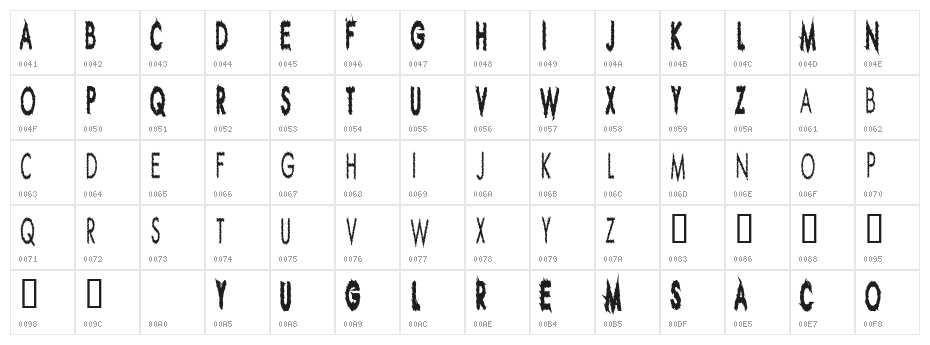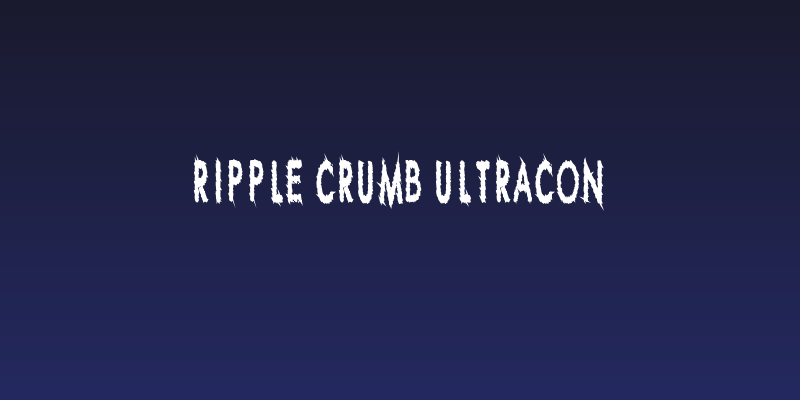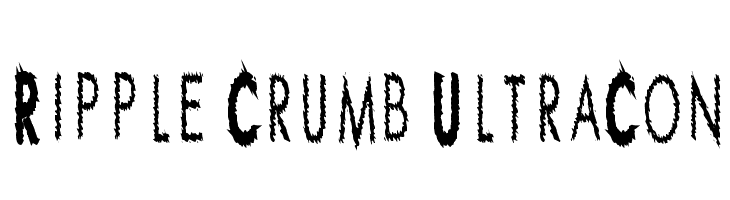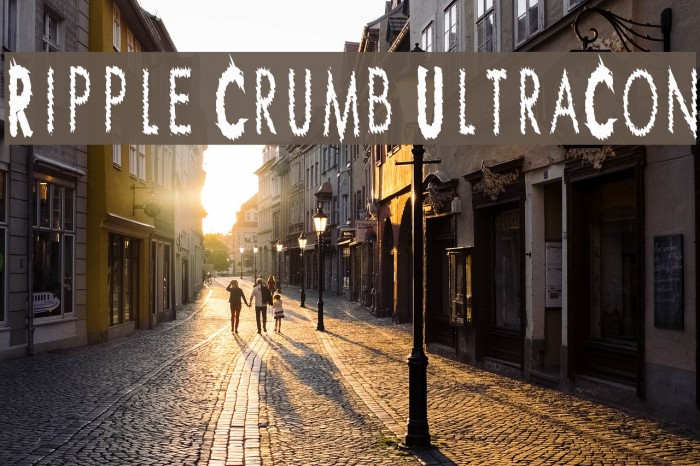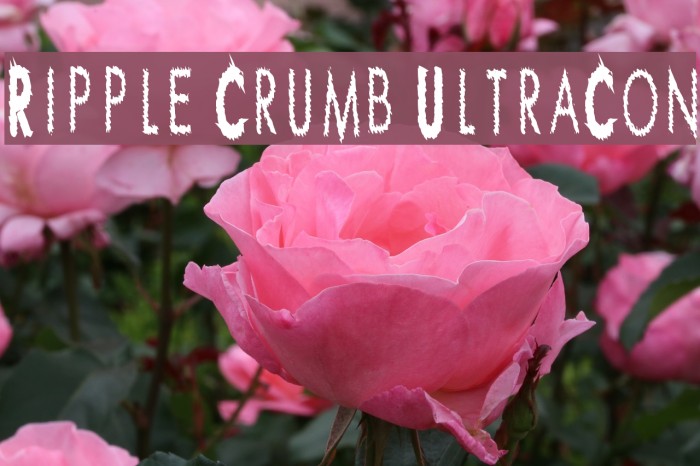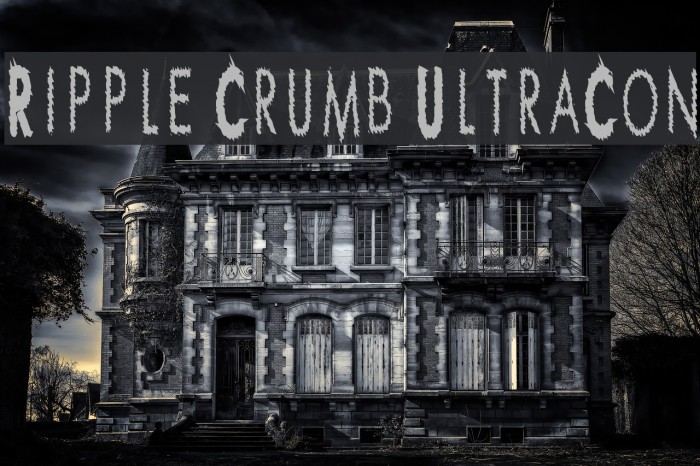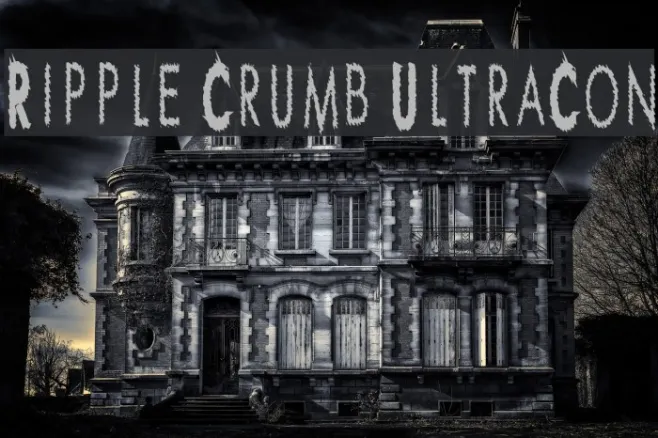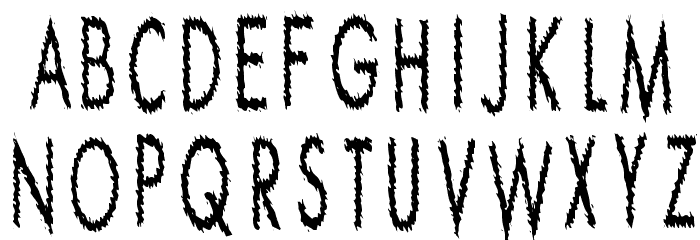
Ripple Crumb UltraCon Font
Ripple Crumb UltraCon Description
This font features a jagged, edgy design that gives it a dynamic and energetic appearance. The uppercase letters are bold and striking, with sharp, irregular edges that create a sense of movement and intensity. The lowercase letters maintain this jagged style, ensuring consistency throughout the typeface. The overall look is reminiscent of a distressed or grunge aesthetic, making it ideal for projects that require a bold statement. The font's unique style is both eye-catching and memorable, perfect for grabbing attention in any design context.
| Proposed Projects | Ideal for music album covers, event posters, edgy branding, and any design needing a bold, standout typeface. |